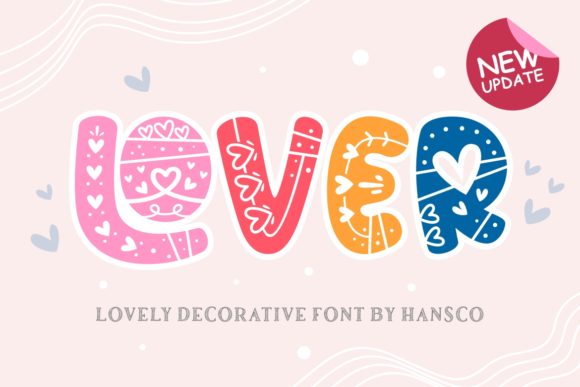
Prepare to be captivated by the Lover Font, a decorative font family tailored to ignite passion and evoke heartfelt emotions. HansCo, the creative genius behind this masterpiece, has meticulously crafted each character to exude a charming and endearing ambiance.
Step into a world of captivating designs, where the Lover Font dances gracefully across your screen, adding a touch of enchantment to your every creation. Whether you're a seasoned graphic artist or simply seeking a font to express your heartfelt sentiments, the Lover Font will effortlessly transform your ideas into visual masterpieces.
Immerse yourself in the boundless possibilities that await with the Lover Font. Its playful and inviting nature makes it an ideal choice for projects that demand a whimsical and lighthearted touch. Design enchanting invitations that speak to the heart, create captivating posters that ignite imaginations, or craft heartwarming greeting cards that convey your deepest emotions.
With the Lover Font, the boundaries of creativity dissolve, allowing you to craft designs that resonate with your audience on a profound level. Elevate your creations to new heights, capturing attention and leaving a lasting impression. Each letter, meticulously designed to convey warmth and charm, will add a unique spark to your projects.